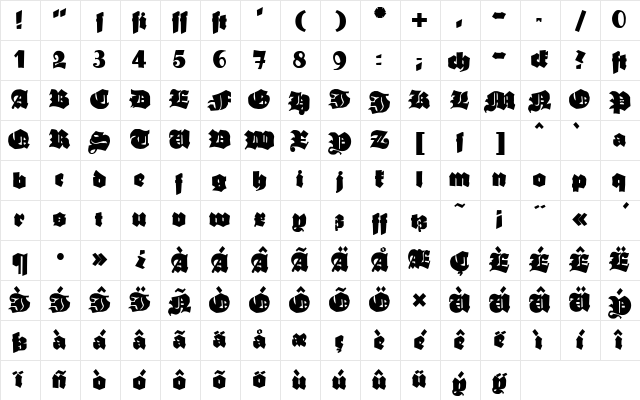
Ganz Grobe Gotisch Regular
Design Context for Ganz Grobe Gotisch
Ganz Grobe Gotisch is a composed and adaptable typeface that performs quietly and consistently across a wide range of design contexts.